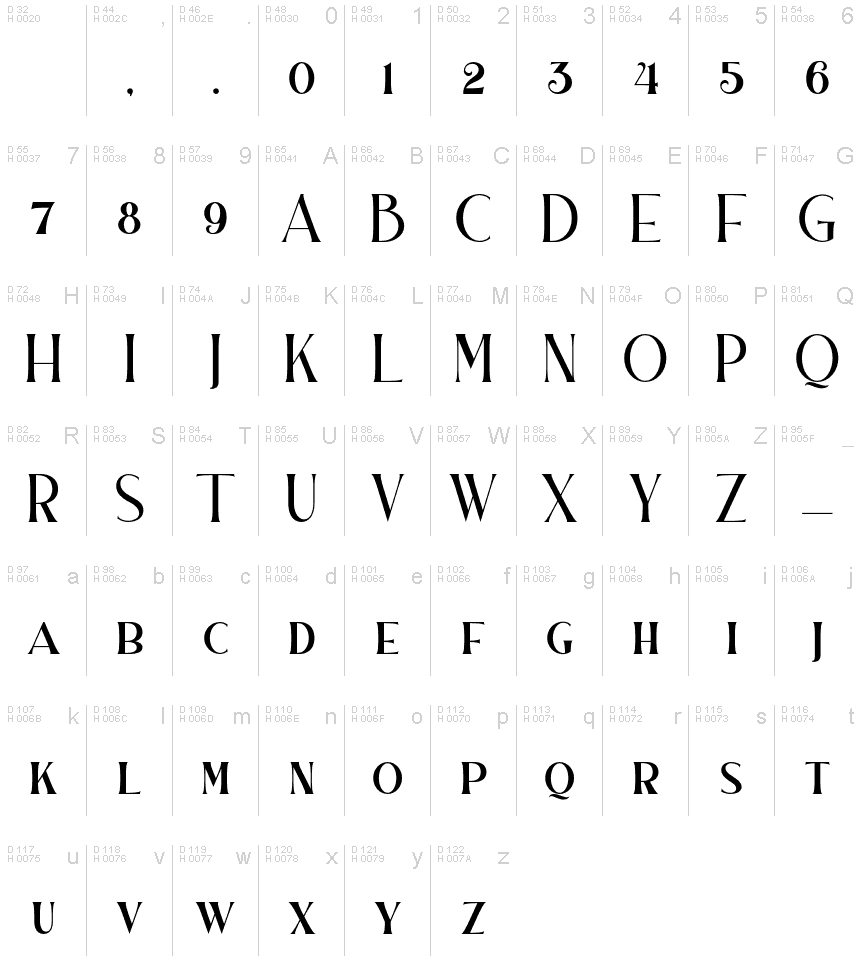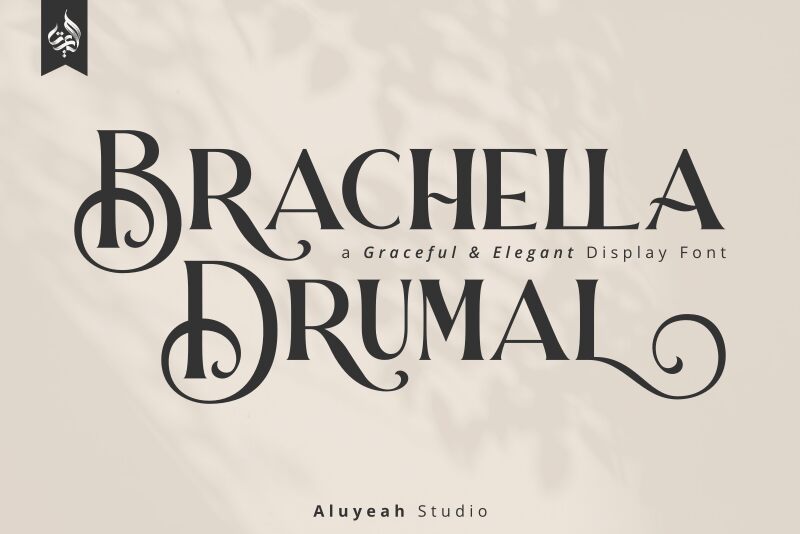
Barchella_Drumal
Barchella Drumal font is a vintage serif typeface designed by Aluyeah Studio.
Brachella Drumal, a Graceful and Elegant Display Font
To get results like the preview just type B.2r.2ach.2ella.2 D.2r.2umal.3